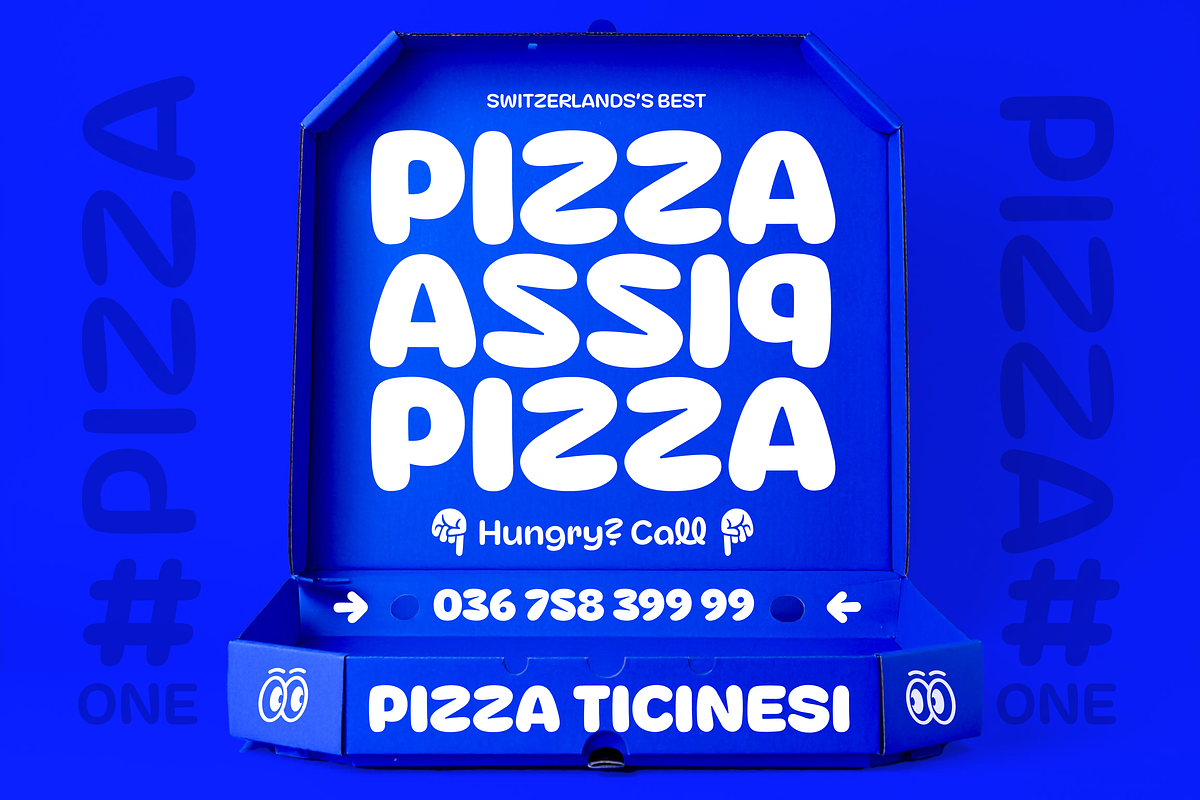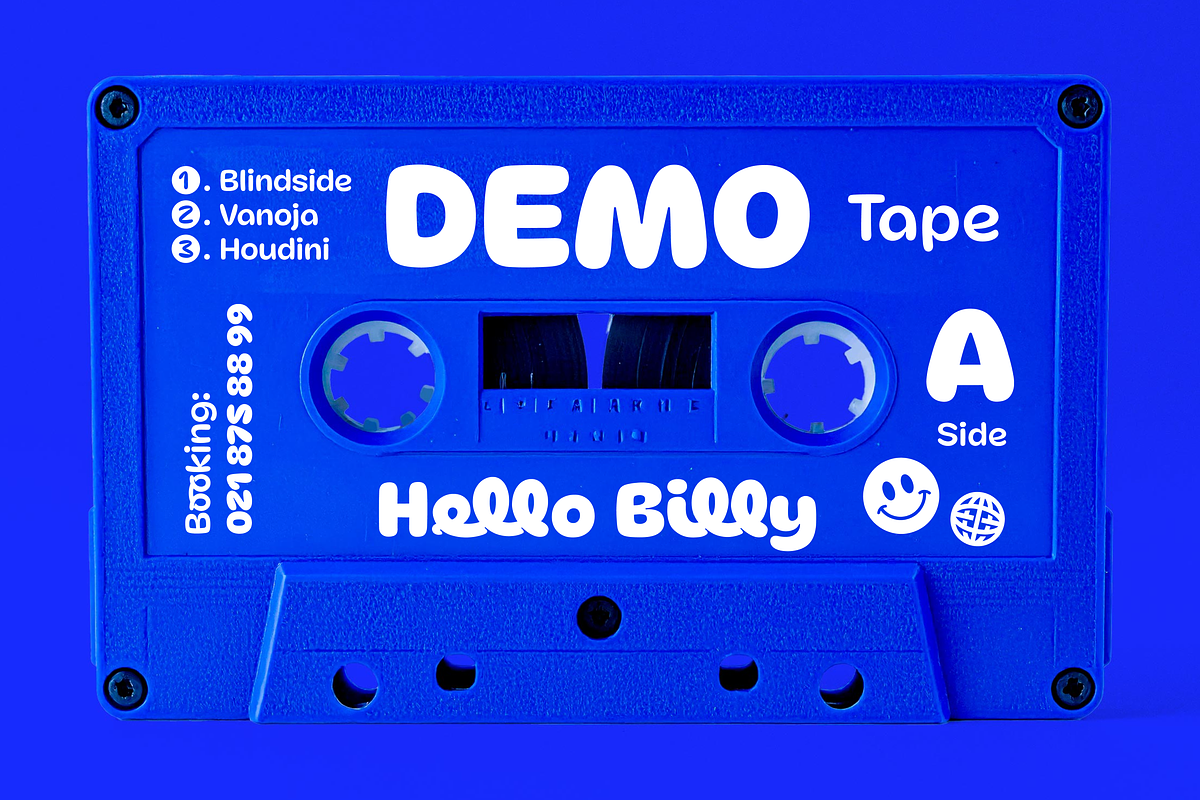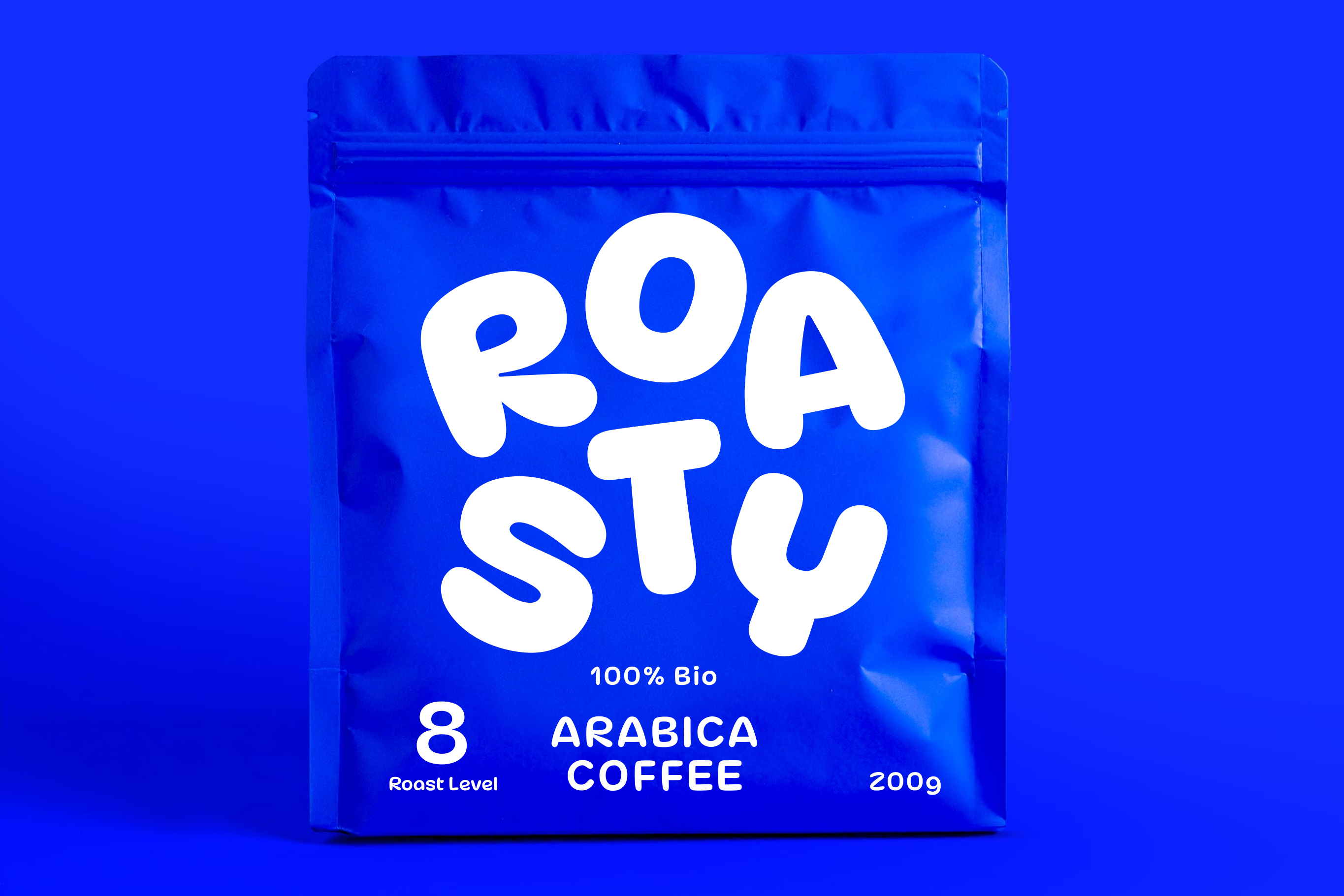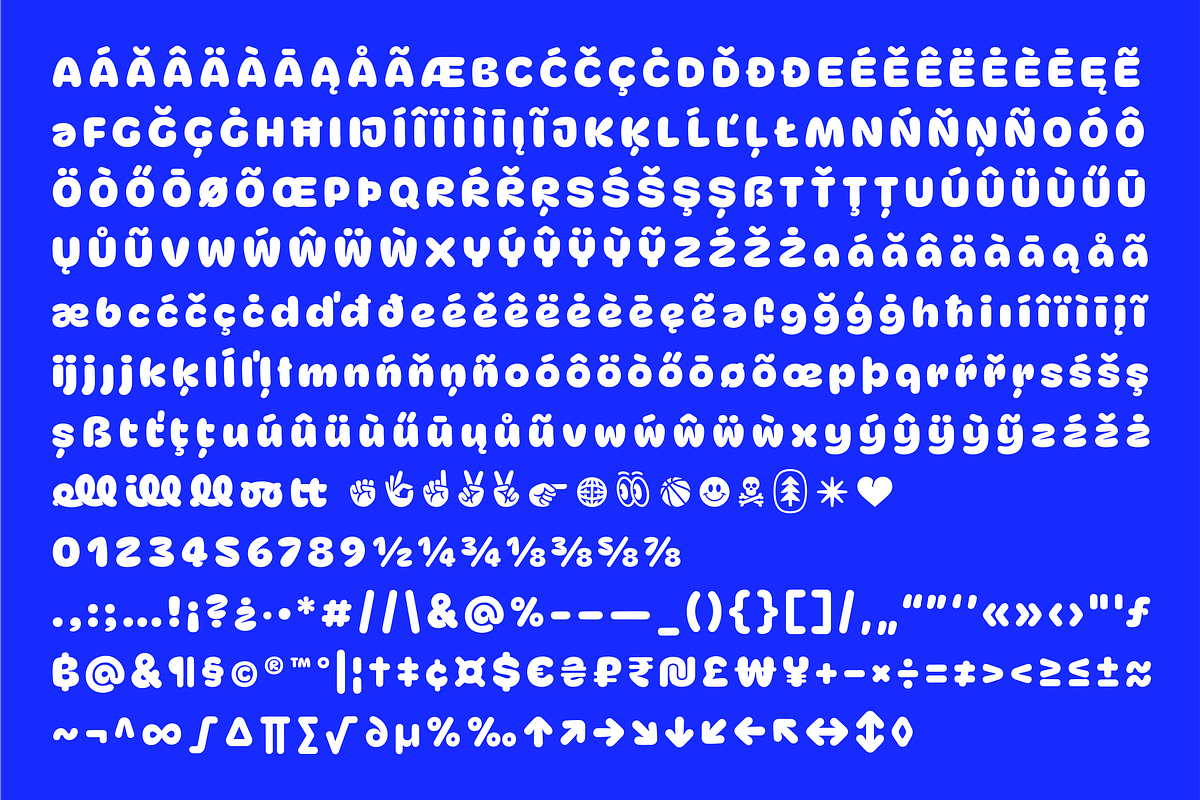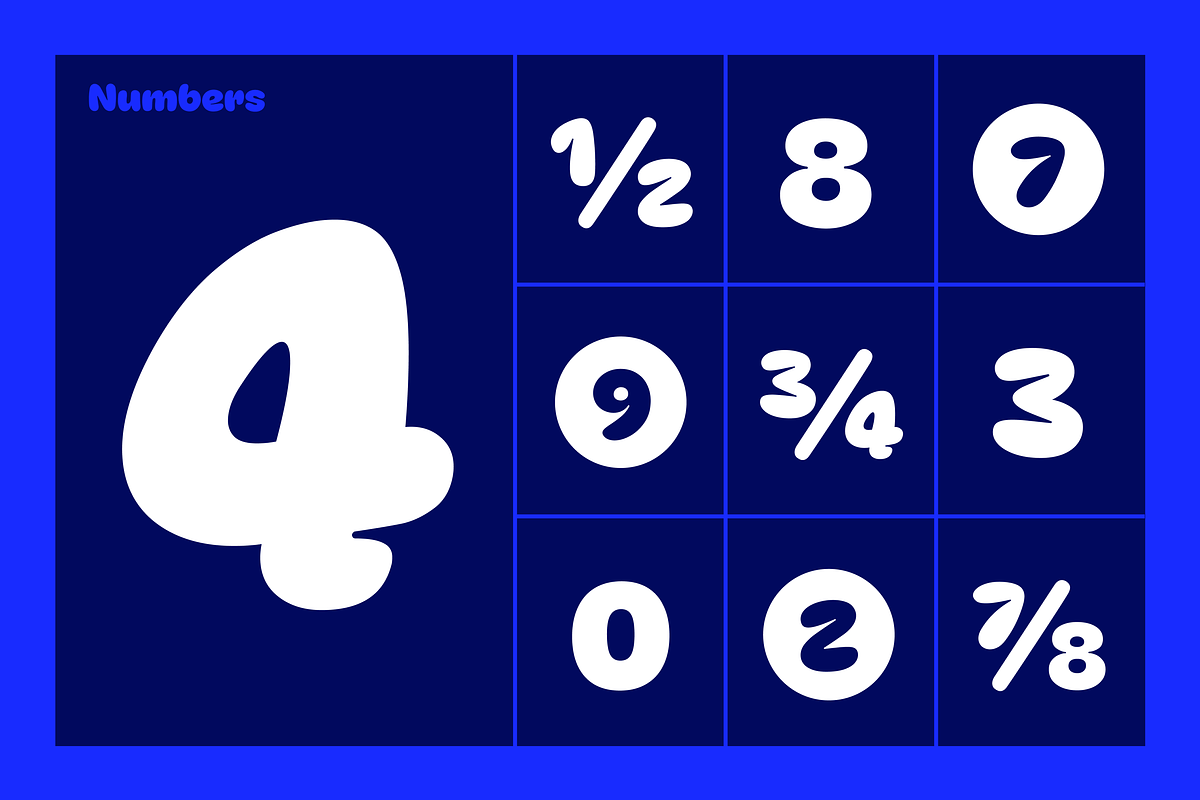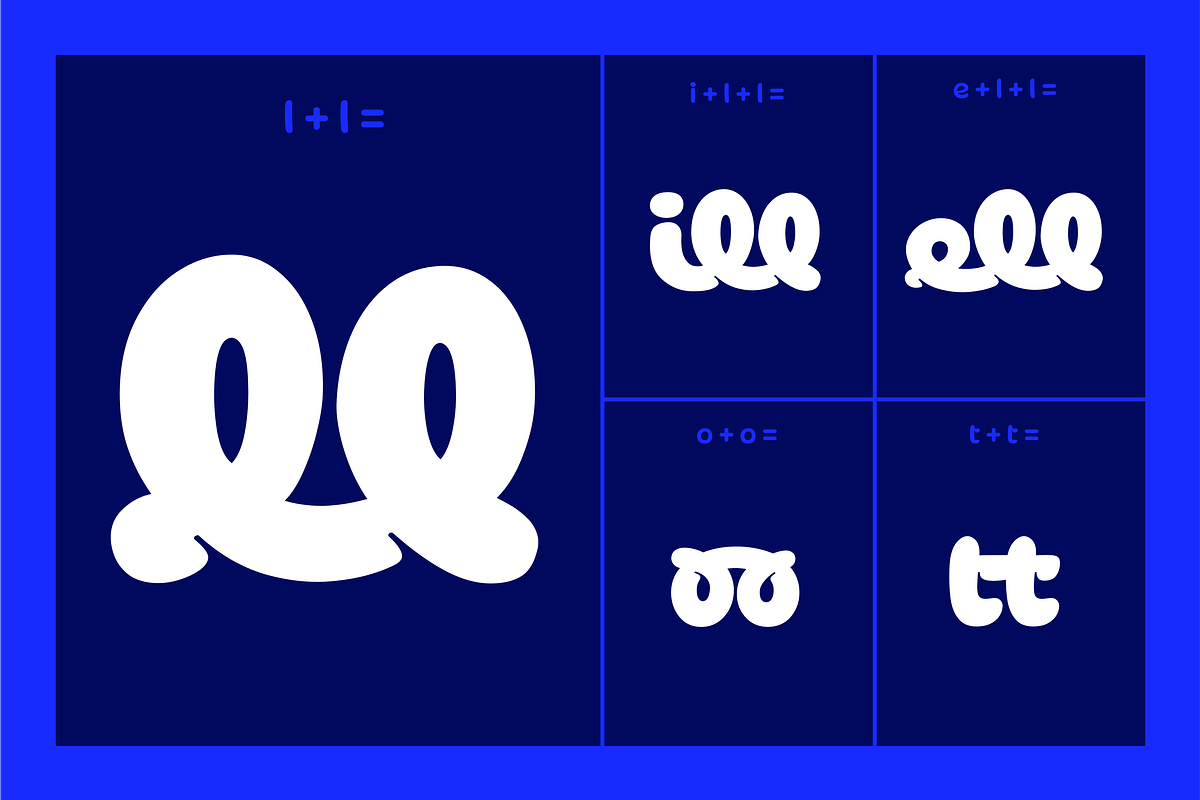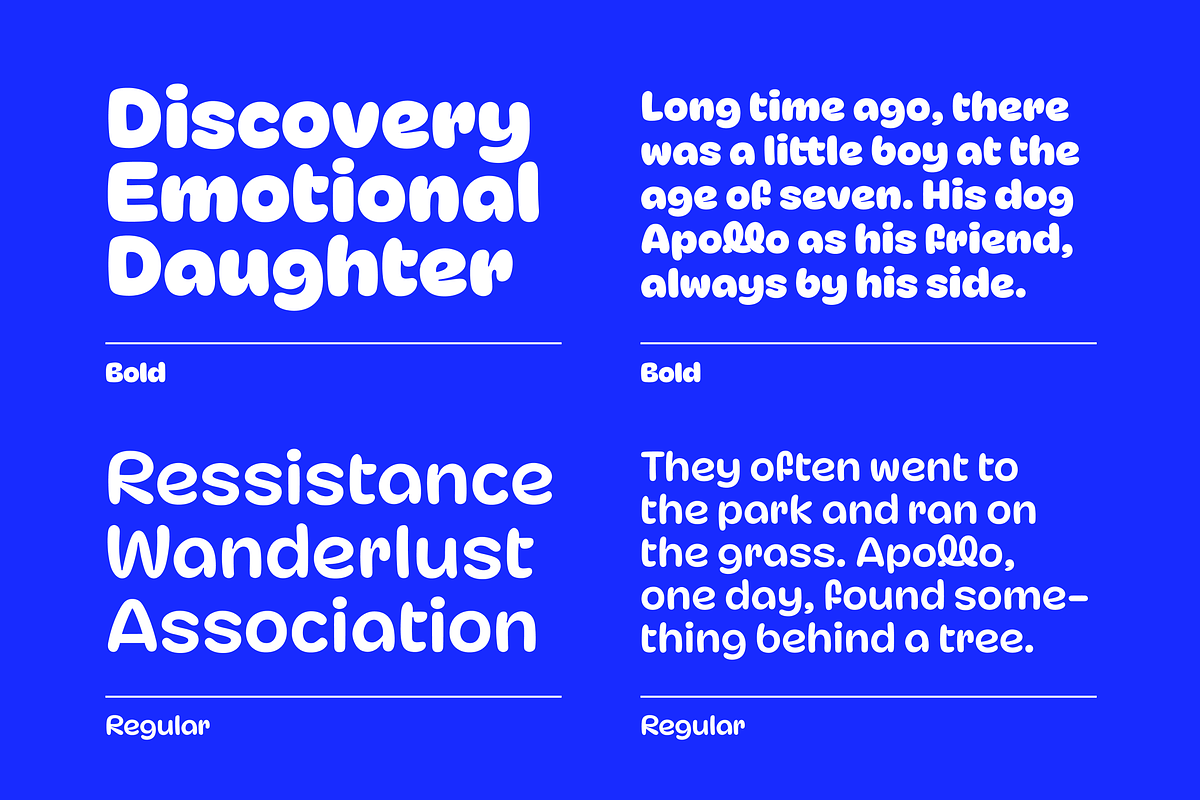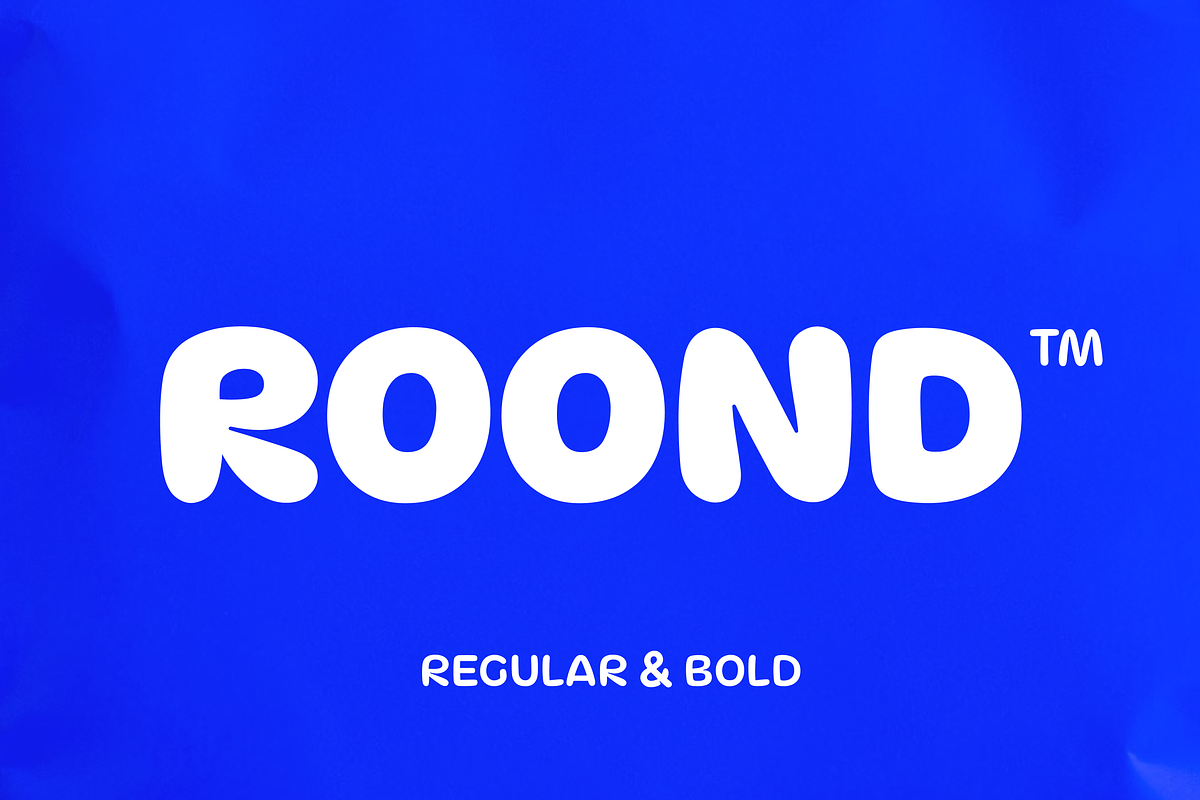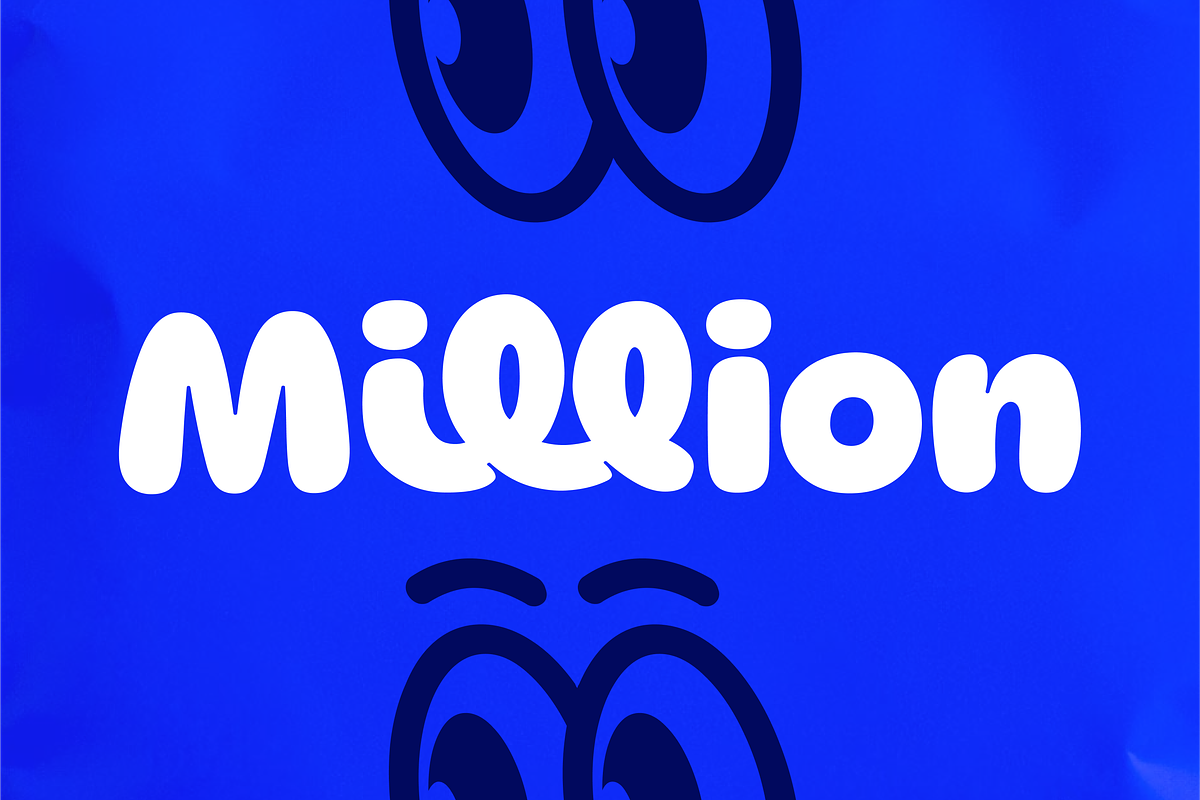
Roond – A rounded, organic typeface
Roond is a well-developed display typeface with pleasant, rounded, voluminous, and organic shapes. It looks especially great as an uppercase font. It is ideal for branding elements in the food industry (packaging & menus) or cultural fields (poster design, newsletters, etc.). Due to its unique form design, it can also be used for logo branding. However, its main use will likely be as a display typeface for striking headlines in magazines, blogs, or newsletters. Roond is the first typeface from the graphic studio Balua, created as part of a cultural project. Five common and fitting ligatures have been incorporated into the font. To add a bit of fun for users, the font also includes 17 symbols that can be accessed via OpenType or the Glyphs library.
• Lowercase & Uppercase letters
• Numbers & Punctuation
• International character set (multilingual)
• OpenType features (ligatures)
• Additional small set of symbols